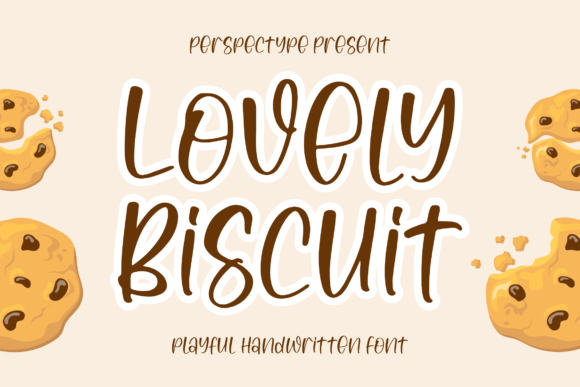
In a world of digital monotony, your designs crave a touch of individuality, a spark that ignites the imagination and captures hearts. Introducing Lovely Biscuit Font, the captivating script font that transforms your creative visions into enchanting realities.
Lovely Biscuit, a creation of Perspectype, is not just a font; it's an artistic expression that dances across your designs with playful elegance. Each character, meticulously crafted with a handmade feel, carries a story, a whisper of creativity waiting to be unveiled.
This display font is your secret weapon to infuse a touch of whimsy and charm into any project. Its playful nature adds a personal touch to logos, branding, social media posts, invitations, and any design that yearns for a dash of lightheartedness.
With Lovely Biscuit, you're not just downloading a font; you're embarking on a creative journey where imagination knows no bounds. Let your designs bloom with personality, let your message resonate with a unique voice, and let Lovely Biscuit be your artistic compass.
Its carefully crafted curves and swashes create a visual symphony, a harmonious blend of elegance and fun. Unleash your creativity and watch as Lovely Biscuit transforms ordinary words into captivating statements, turning your designs into memorable masterpieces.
In a world saturated with uniformity, Lovely Biscuit stands as a beacon of originality, a testament to the power of handcrafted artistry. It's the perfect choice for designers seeking to evoke emotions, create connections, and leave a lasting impression.
Embrace the playful spirit of Lovely Biscuit and let your designs dance with joy. Let your imagination soar, let your creativity flourish, and witness the transformative power of this exceptional font.